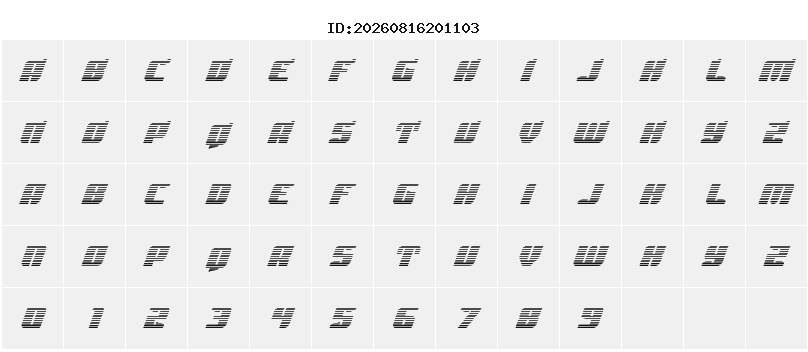
Spartaco Gradient Preview
• Font Name: Spartaco Gradient
• Full Font Name: Spartaco Gradient
About Spartaco Gradient.ttf
Spartaco Gradient.ttf is a modern, elegant sans-serif font designed for ultimate readability and visual harmony. Perfect for branding, headlines, web design, and print materials.